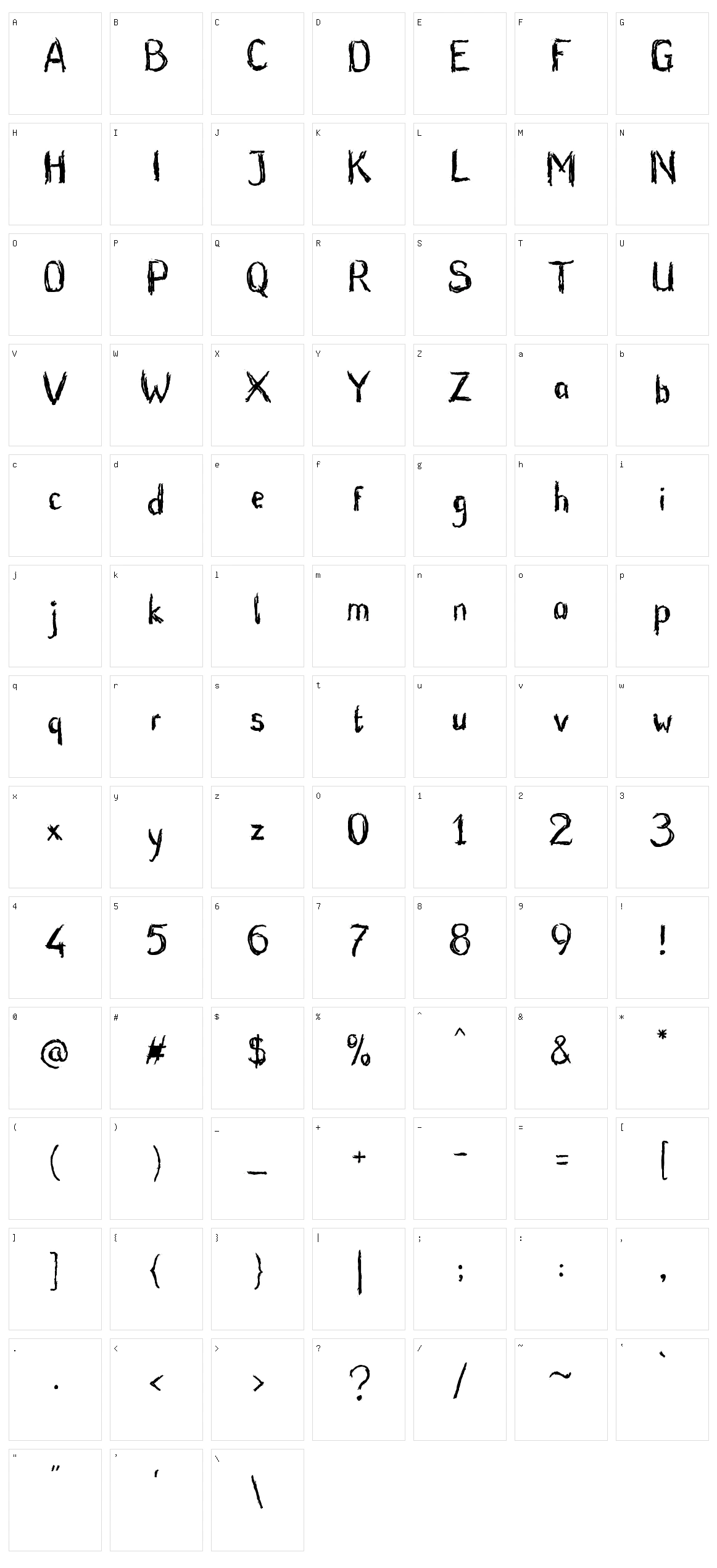
The free font Blunt Brush is carefully designed by Royaltype, showcasing a thoughtful balance of creativity and usability and falls under the Horror font style. When you download the ZIP file, it contains only 430.92 KB of font files, making it lightweight and quick to download. Please review the license details below to understand permitted usage and distribution rights. If license information is not available, we recommend using this font for personal projects only or contacting the author directly for commercial usage permissions.